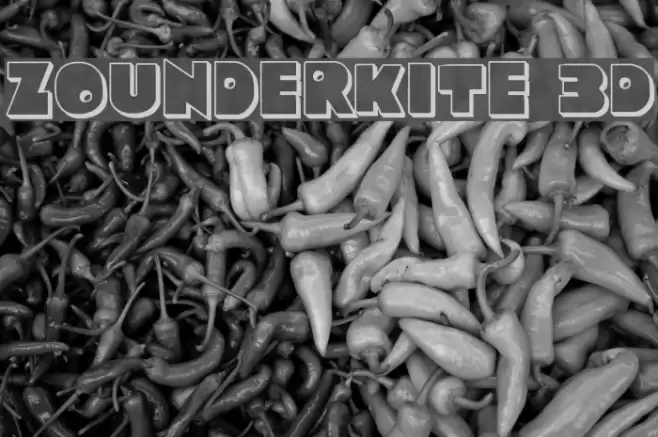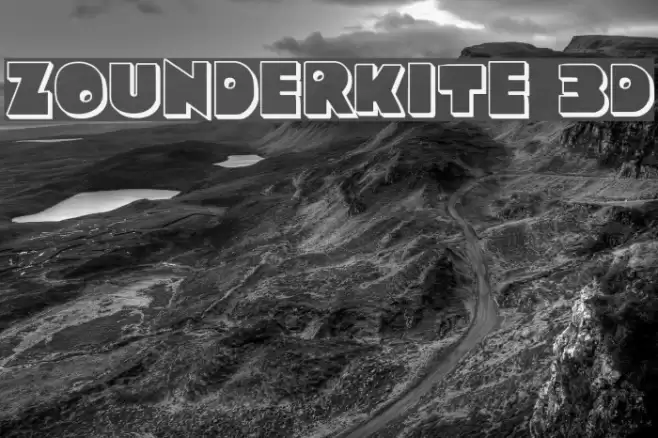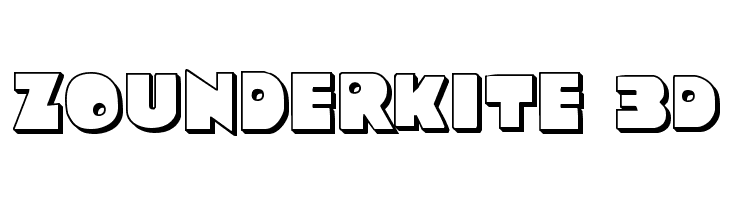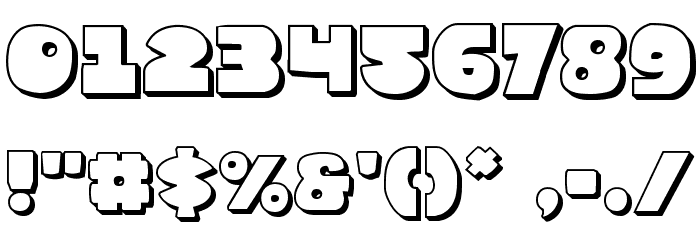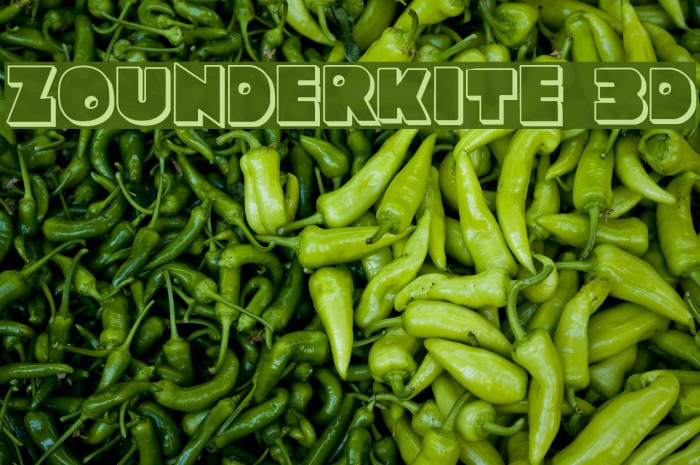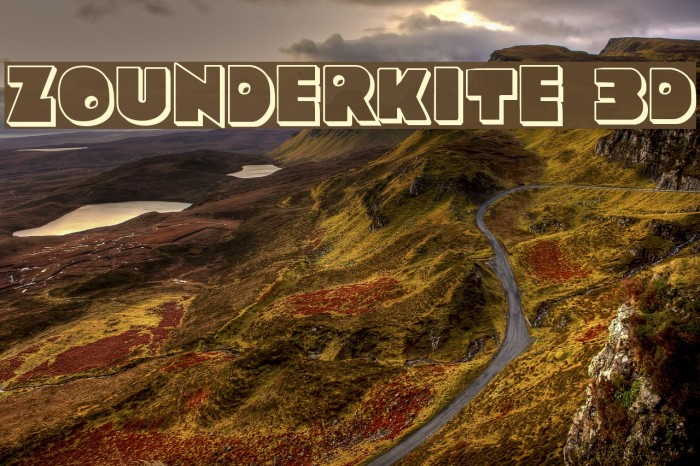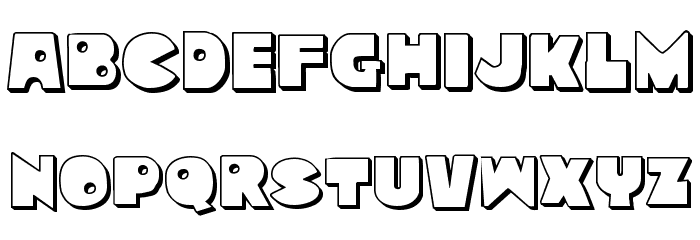
Zounderkite 3D Font
Zounderkite 3D Description
This font features a bold, playful 3D style with thick outlines and a cartoonish appearance. The characters are blocky and rounded, giving them a friendly and approachable look. The 3D effect is achieved through a shadow-like outline that adds depth and dimension. This font is highly legible and stands out due to its unique design, making it suitable for attention-grabbing headlines or playful branding. The numbers and special characters maintain the same bold and rounded style, ensuring consistency across all elements.
A bold, playful 3D font with thick outlines and a cartoonish style from Cartoon fonts.
- Proposed Projects: Ideal for children's books, playful branding, comic strips, and eye-catching headlines.
- Overall Style: Playful, Cartoonish, 3D